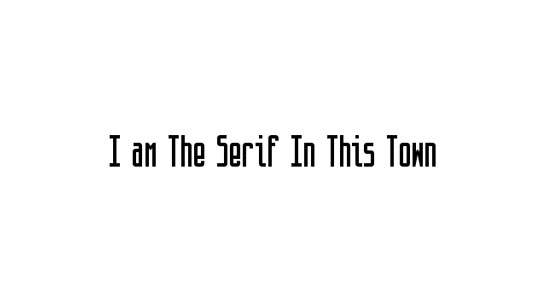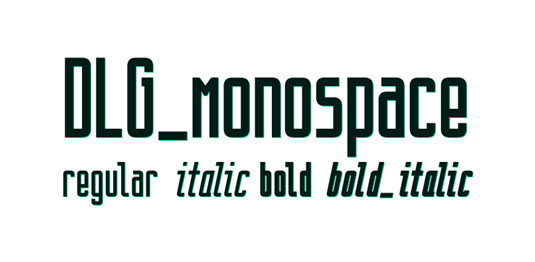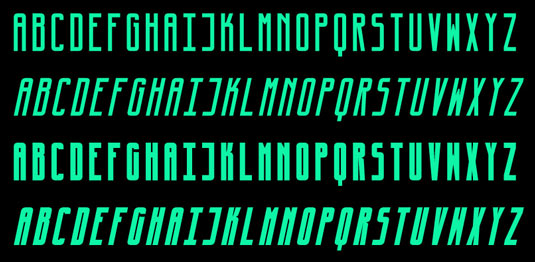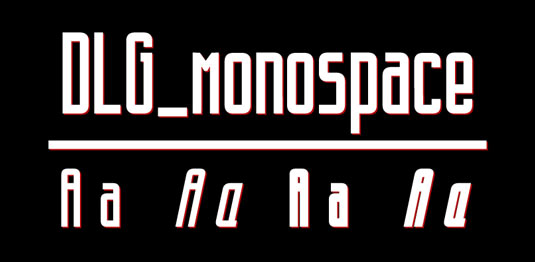
Font of the day: DLG Monospace
Every day we showcase the best fonts on the web. Today it's DLG Monospace by Sebastian Cabaj.
DLG Monospace by Sebastian Cabaj
Today's font of choice is DLG Monospace by Poland-based designer and art director Sebastian Cabaj. With an elegant, minimal design, DLG Monospace is perfect for branding, posters and headlines.